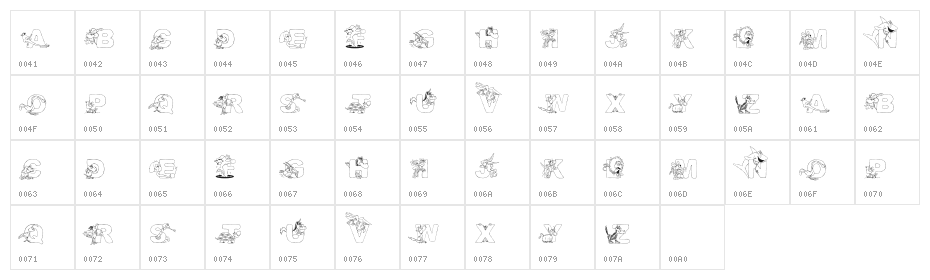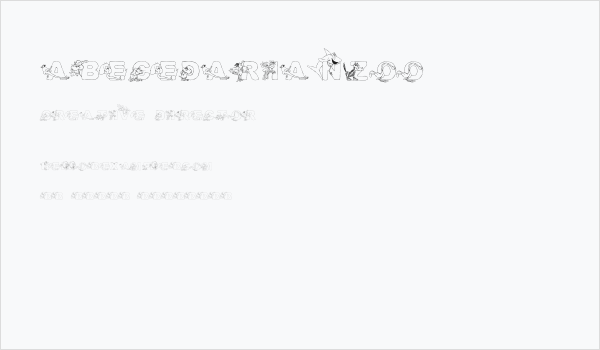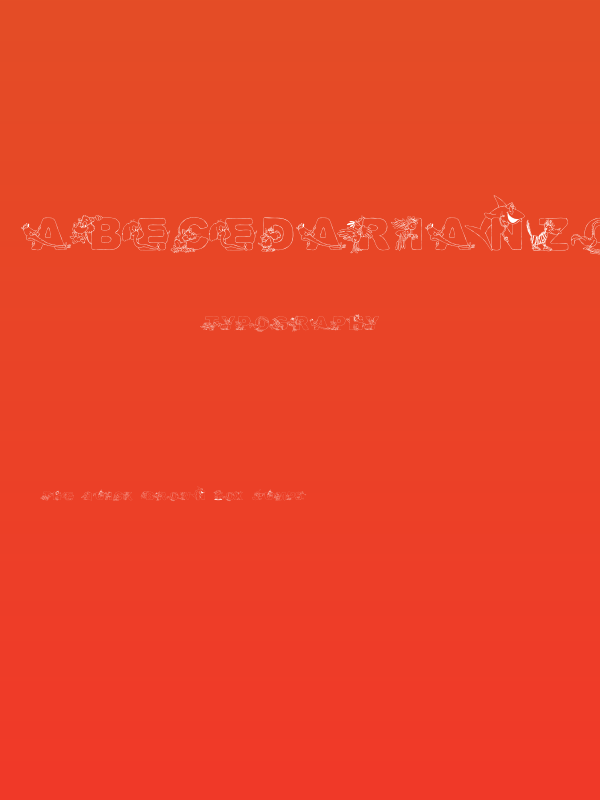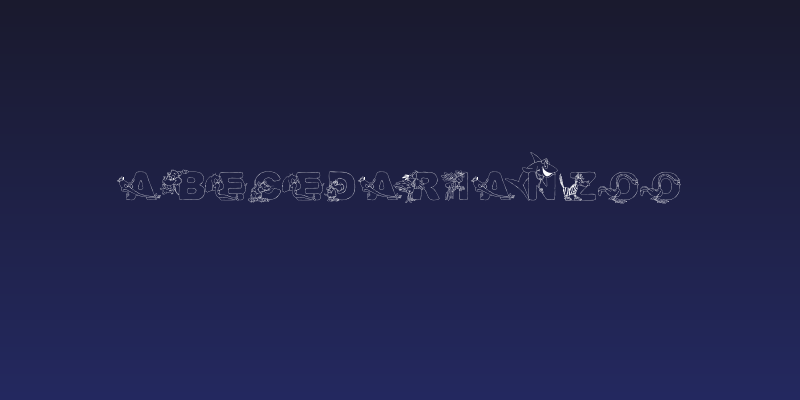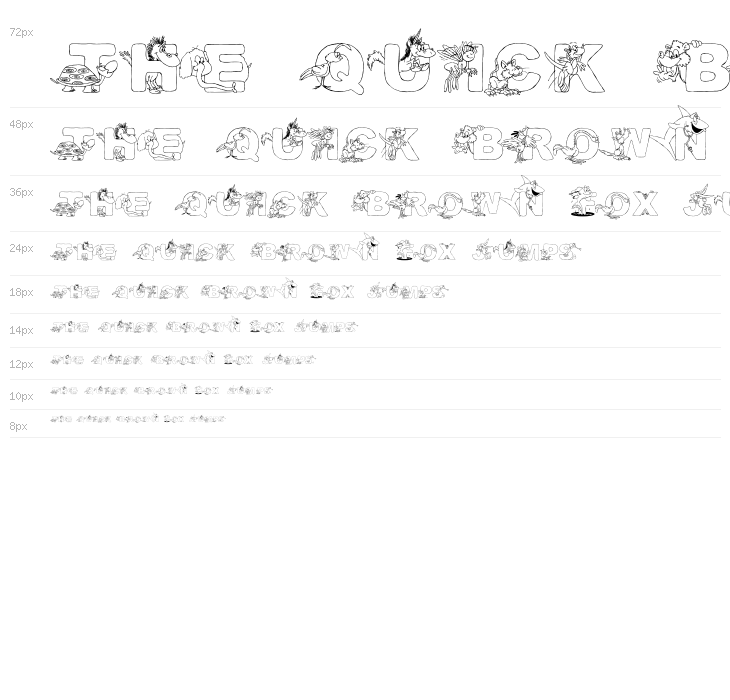
AbecedarianZoo Font
AbecedarianZoo Description
This whimsical and playful font features each letter integrated with charming animal illustrations, creating a lively and engaging visual experience. The characters are bold and decorated with various animals, each adding a unique personality to the letters. The font is highly decorative, making it ideal for projects that aim to capture attention and convey a sense of fun and creativity. The intricate details of the animals add a layer of complexity and artistic flair, making it suitable for children's books, educational materials, or playful branding. The overall design is consistent, with each letter maintaining a similar style and level of detail, ensuring a cohesive look across any text.
| Proposed Projects | Ideal for children's books, educational materials, playful branding, and creative posters. |